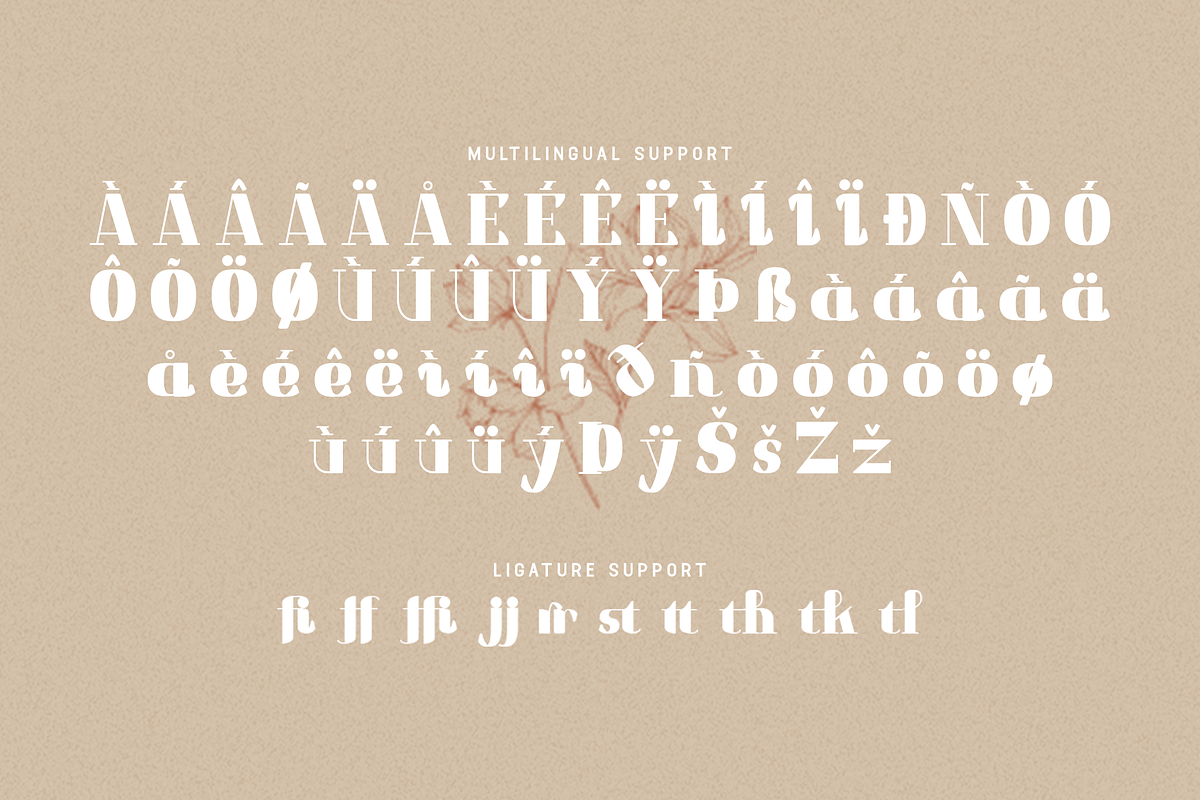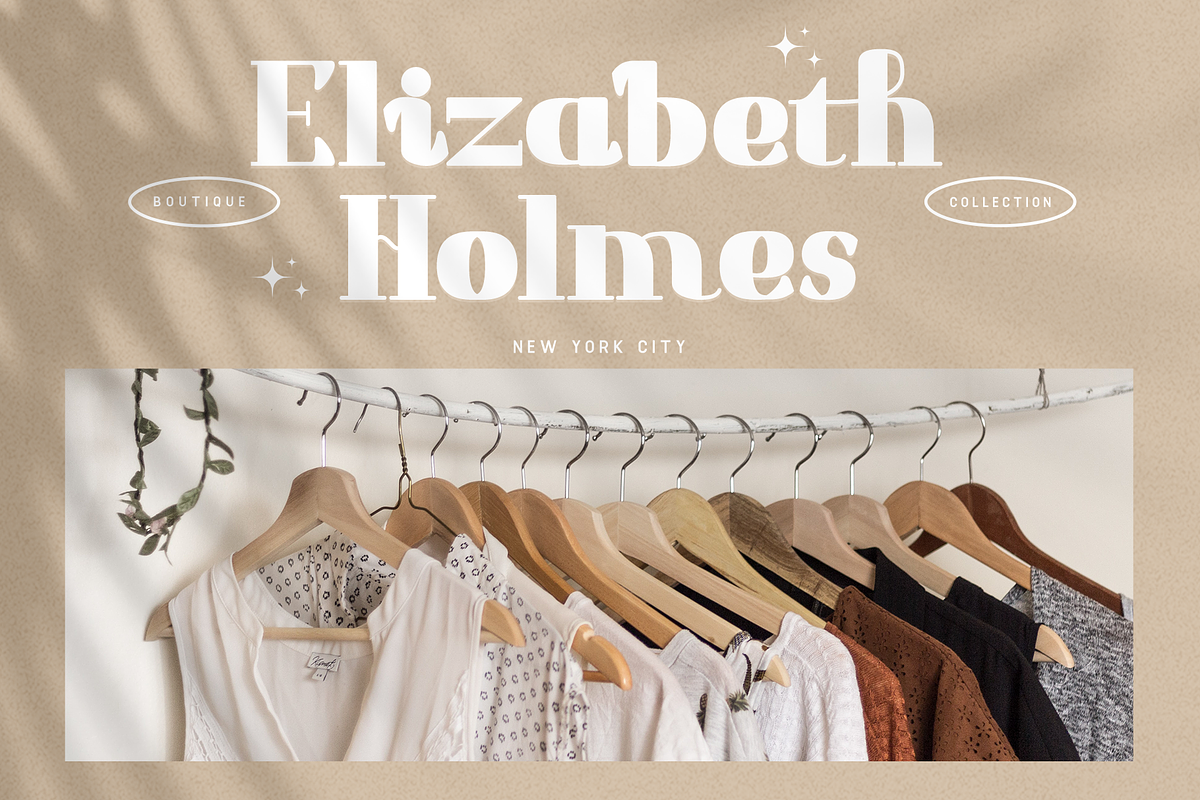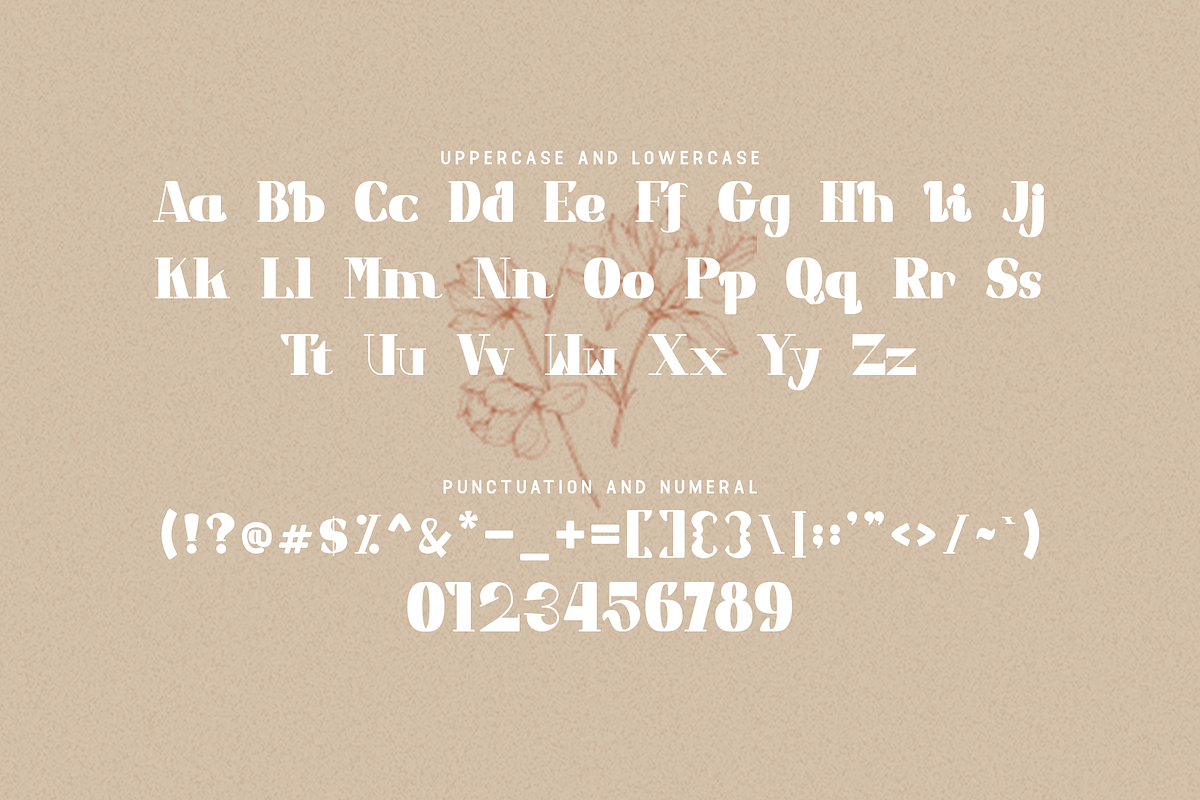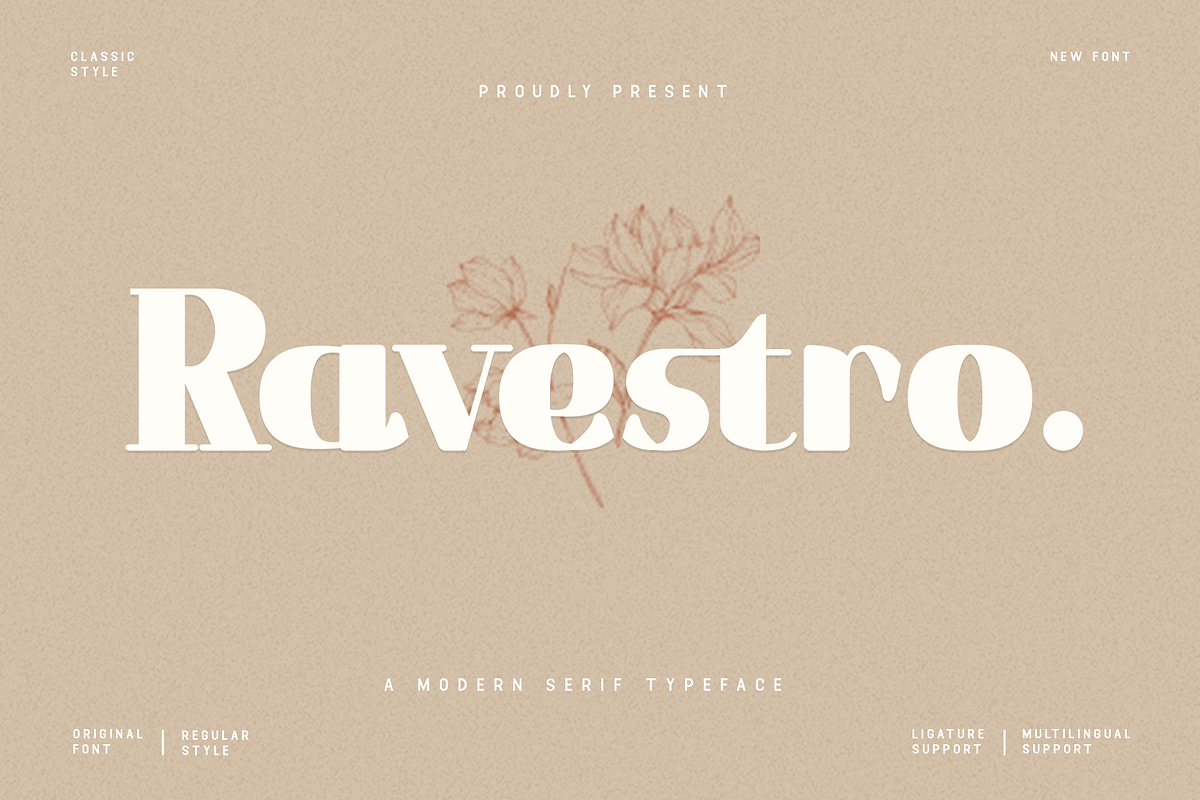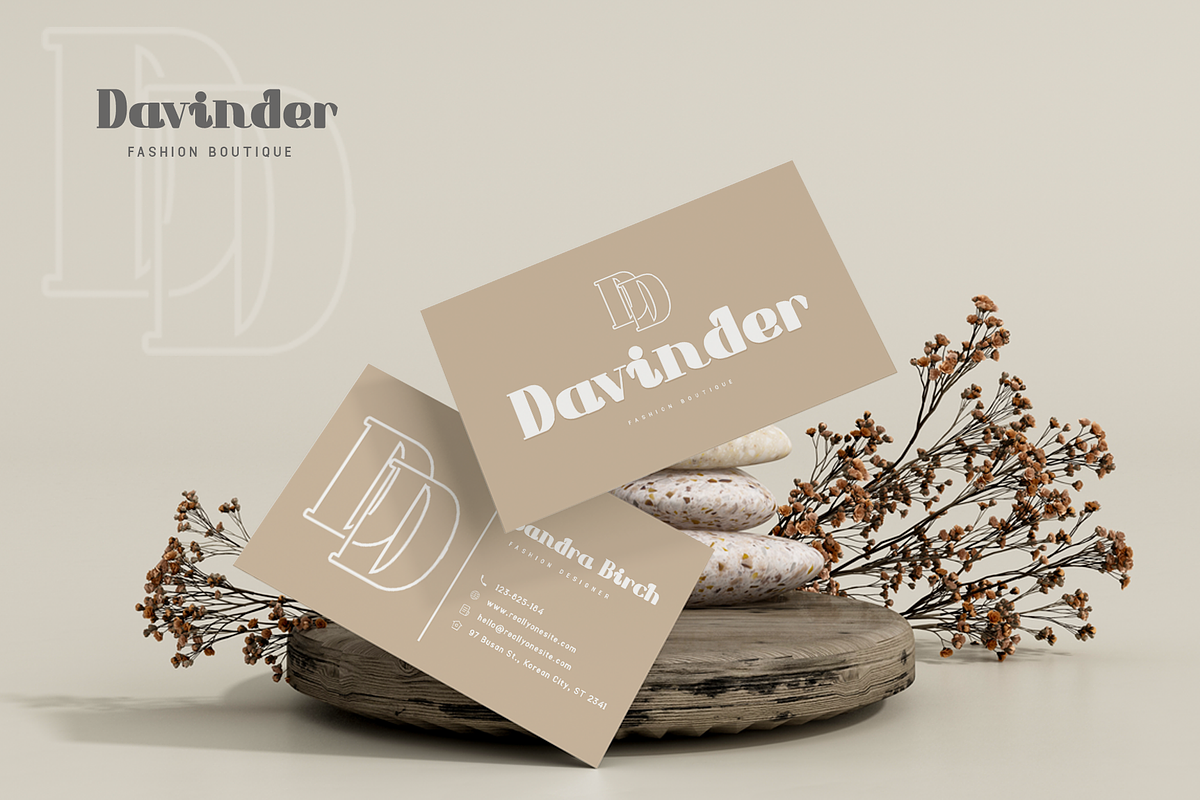
Ravestro - A Modern Serif Typeface
Ravestro is a modern serif typeface that combines classic elegance with contemporary design elements. Perfect for sophisticated branding, editorial designs, and luxurious print materials, Ravestro brings a touch of refinement to any project. Its sharp serifs and well-defined letterforms provide a striking balance between tradition and modernity, making it an excellent choice for creating eye-catching headlines and polished body text.
With its meticulously crafted details, Ravestro exudes a sense of professionalism and high quality. This versatile font is ideal for a wide range of applications, from upscale magazine layouts to prestigious business presentations. Its unique character and clean lines ensure readability while adding a touch of sophistication to your designs. Ravestro supports multiple languages, making it a global asset for designers aiming to create impactful and inclusive content.
Elevate your design projects with Ravestro, where timeless serif elegance meets modern design sensibilities. Its distinctive style and versatility make it a must-have typeface for designers seeking to create memorable and elegant work. Make a statement with Ravestro and enjoy the perfect blend of classic and contemporary aesthetics.